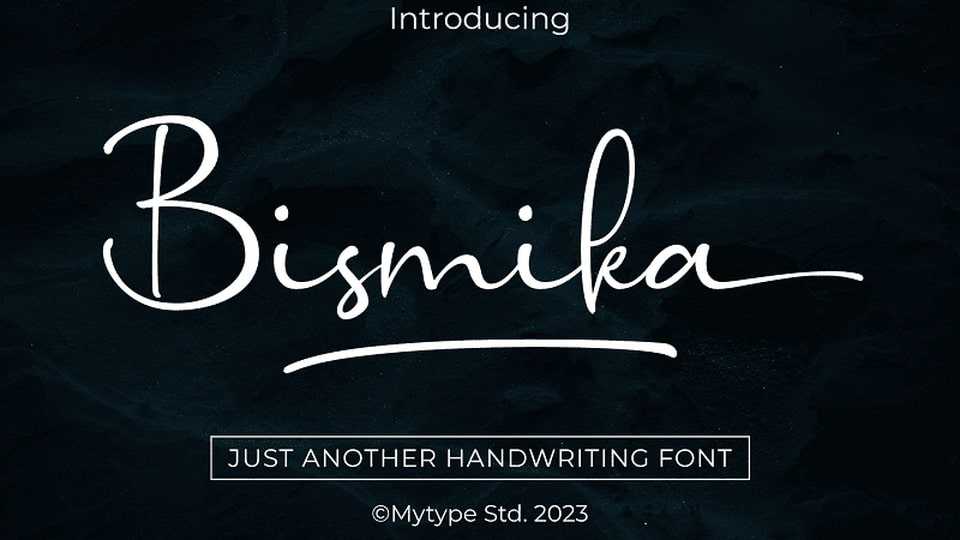
Bismika Font › Fontesk
Download Bisimka font, exquisite and elegant, it showcases the artistry of beautiful calligraphy. With its flowing curves, delicate strokes, this font adds a touch of sophistication to your designs.
Designer: Mytype Studio